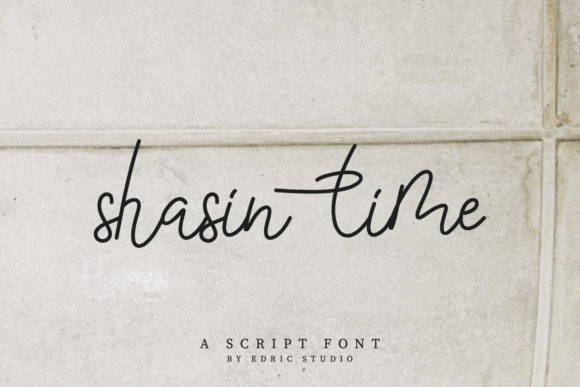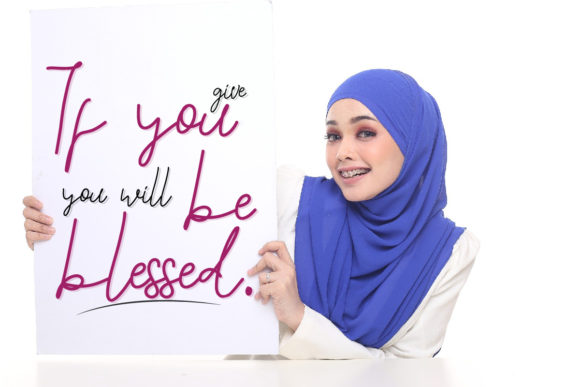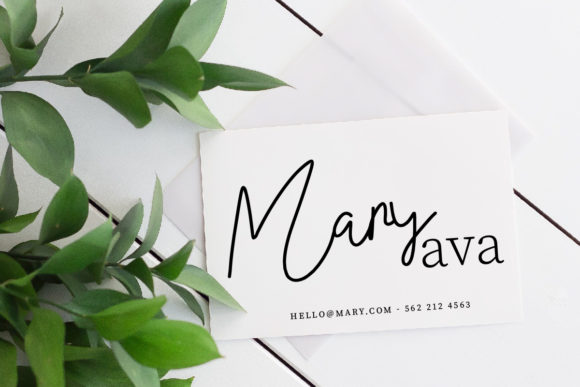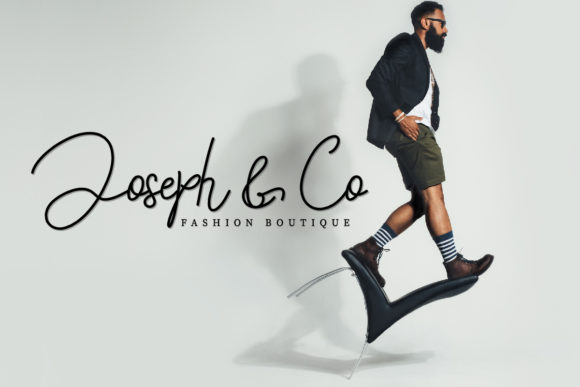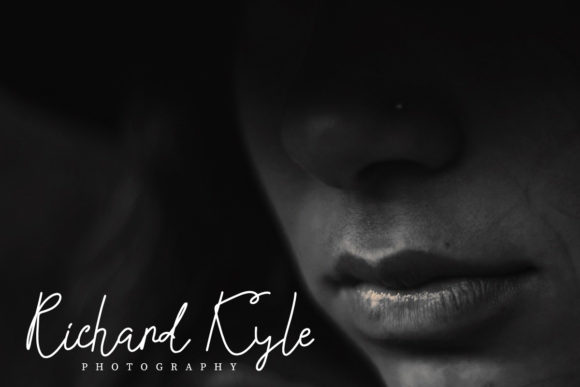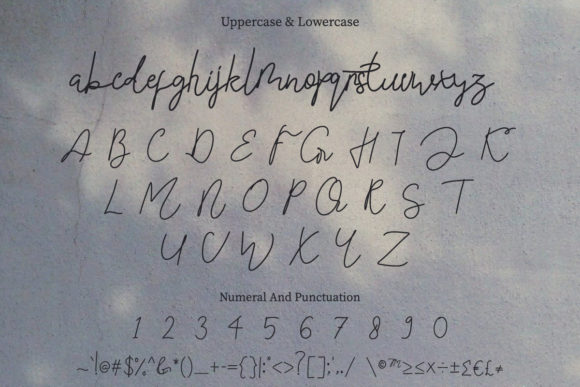
Introduction to Shasine Time Font
Shasine Time is a sweet and unique handwritten font.
Fall in love with its incredibly versatile style and use it to create gorgeous wedding invitations, beautiful stationary art, eye-catching social media posts, and much more .
Key Features of Shasine Time Font
Why Choose Shasine Time Font?
Shasine Time Font offers exceptional quality and versatility, making it a valuable addition to your design toolkit. Whether you’re creating for personal projects or commercial use, Shasine Time Font delivers professional results.